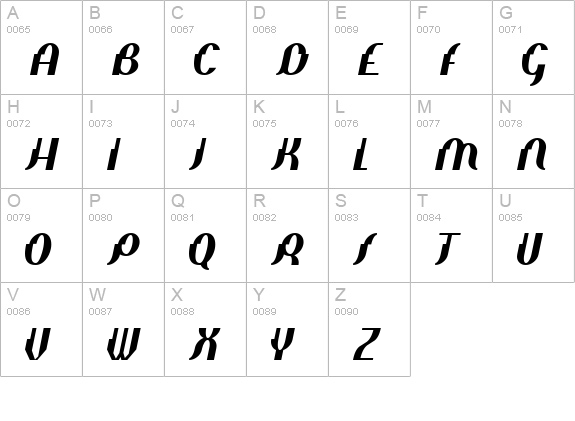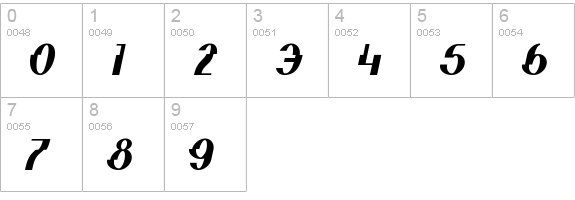
Elephant man Italic is a distinctive, italic variant in the Elephant typeface family \xE2\x80\x94 well suited to design and typography projects.
The Elephant Man Italic font exudes a sense of strength and elegance with its bold, slanted design. Perfect for adding a touch of sophistication to your projects, this typeface commands attention and makes a statement. Its sleek curves and unique detailing set it apart from the crowd, giving your text a distinctive edge. Best of all, Elephant Man Italic font is available for free download at FontsMarket.com. So why wait? Add this versatile font to your collection today and elevate your designs to new heights!